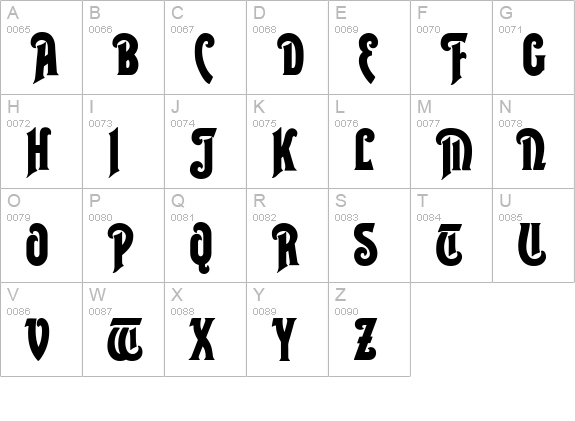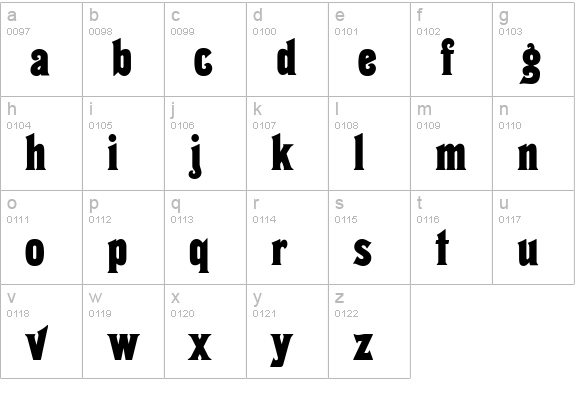
Topaz Font Details
Introducing Topaz, a captivating and elegant font that effortlessly combines sophistication with modernity. With its sleek lines and graceful curves, Topaz exudes a timeless charm that is sure to enhance any design project. This exquisite font is not only visually stunning, but it also offers a seamless reading experience. Its carefully crafted letterforms ensure legibility and clarity, making it perfect for a wide range of applications, from elegant invitations and wedding stationary to professional branding and editorial designs. The versatility of Topaz is further enhanced by its extensive character set, which includes a variety of alternate glyphs and ligatures, allowing for endless creative possibilities. Whether you're looking to add a touch of elegance to a logo or create a unique headline, Topaz provides the tools to bring your vision to life. And the best part? Topaz is available for free download at FontsMarket.com! Yes, you read that right - this exceptional font can be yours without spending a dime. FontsMarket.com is renowned for its vast collection of high-quality fonts, and Topaz is no exception. Simply visit the website, locate Topaz, and start using this remarkable font in your projects today. So why wait? Elevate your designs with the timeless beauty of Topaz. Download it for free at FontsMarket.com and unlock a world of creativity and inspiration.